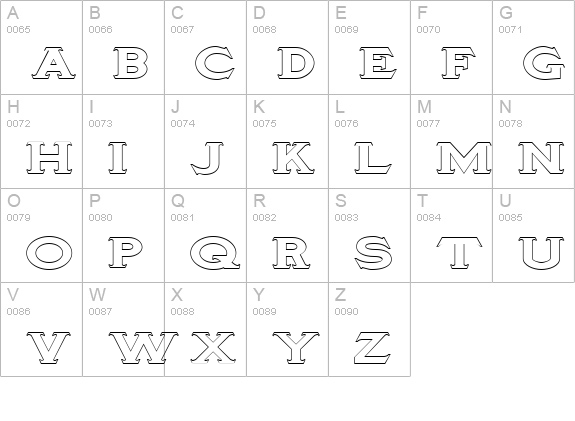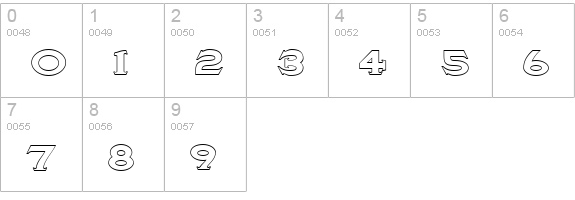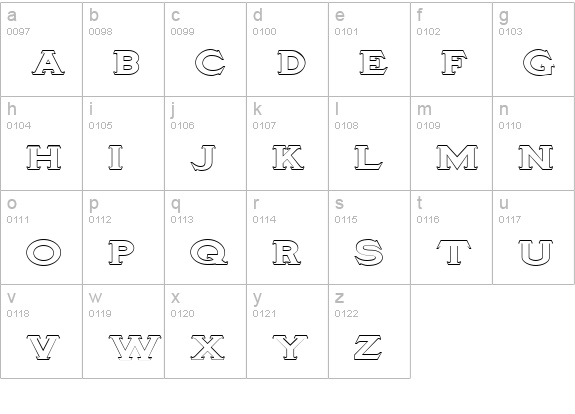
TinplateTitlingWide Font Details
TinplateTitlingWide is a sophisticated and versatile font that will add a touch of elegance to any project. With its clean and crisp lines, this font is perfect for headlines, titles, and branding materials. Its wide spacing and bold letterforms make it highly readable and eye-catching, ensuring that your message will stand out from the crowd. What sets TinplateTitlingWide apart is not just its stunning design, but also the fact that it is free! Yes, you read that right - this amazing font is freely available to download at FontsMarket.com. Whether you're a designer, a student, or just someone looking to add a professional touch to their creations, you can now access this exceptional font without spending a dime. TinplateTitlingWide is perfect for a wide range of projects, from websites and social media graphics to brochures and advertisements. Its versatility knows no bounds, and its timeless appeal will ensure that it remains a favorite among designers for years to come. So why wait? Head over to FontsMarket.com and get your hands on TinplateTitlingWide today. With its elegant design, exceptional readability, and the fact that it's free, this font is an absolute must-have for anyone looking to make a lasting impression.